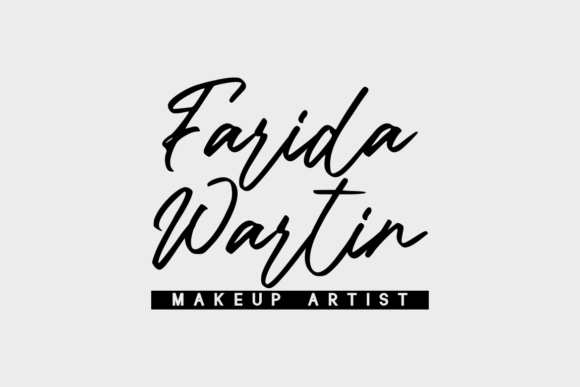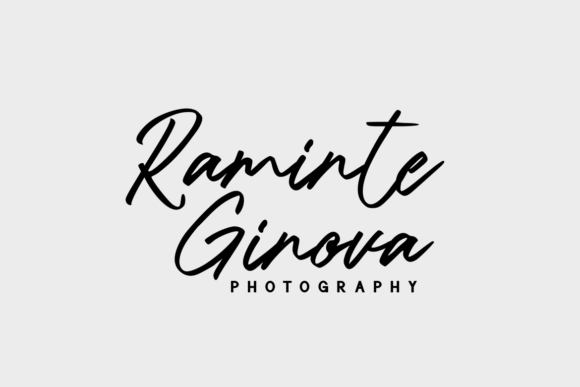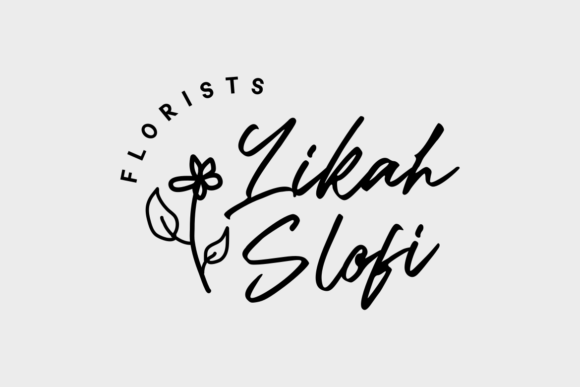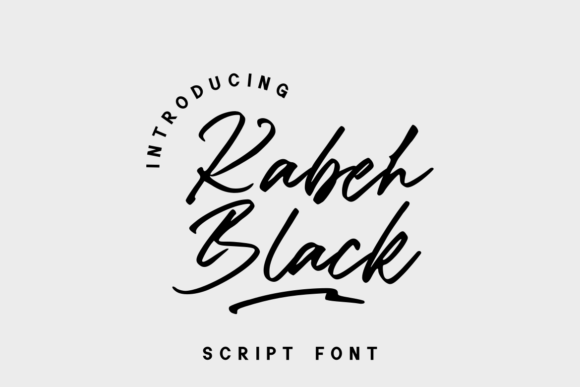
Introduction to Kabeh Black Font
Kabeh Black is a modern and cool script font.
Key Features of Kabeh Black Font
Why Choose Kabeh Black Font?
Kabeh Black Font offers exceptional quality and versatility, making it a valuable addition to your design toolkit. Whether you’re creating for personal projects or commercial use, Kabeh Black Font delivers professional results.